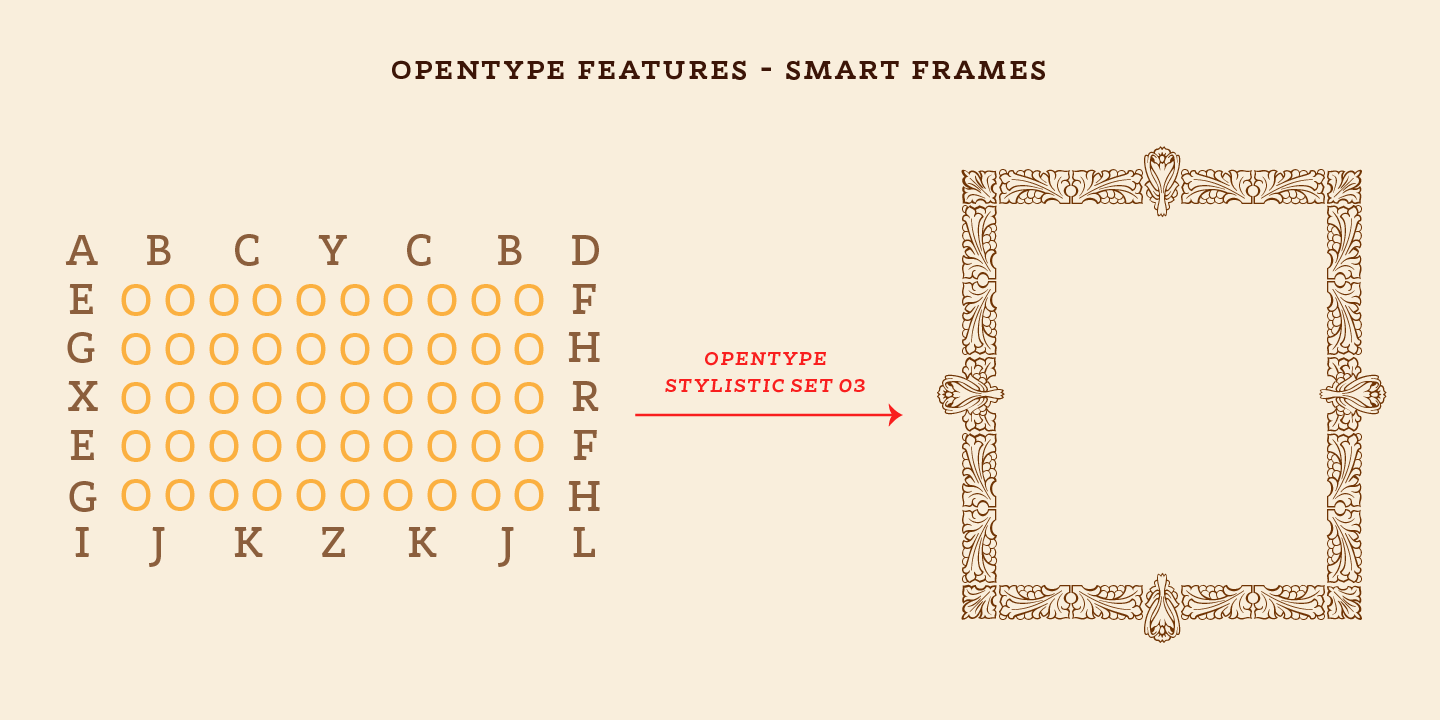
For projects that demand sophistication and professionalism, Diplomatic Font Free Download is the perfect choice. This elegant serif font exudes authority and refinement, making it ideal for corporate branding, editorial design, invitations, and luxury packaging.
Diplomatic Font Free Download features clean, sharp lines and well-balanced proportions that ensure readability while conveying a sense of trust and prestige. Whether used in print or digital media, this font enhances your message with a polished, dignified look.
Ideal for law firms, financial institutions, and high-end brands, Diplomatic elevates your projects with a timeless, classic style that never goes out of fashion.
In summary, Diplomatic Font Free Download is a refined, versatile serif font that adds authority and elegance to your designs. Try it free for testing, and when ready, secure the license for commercial use.